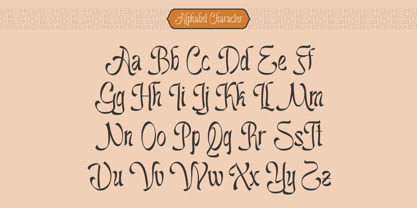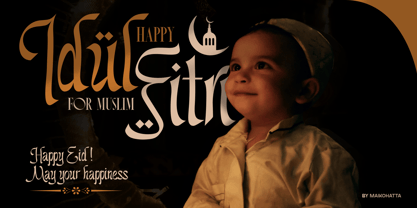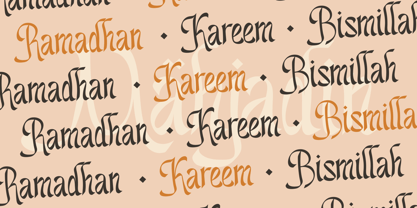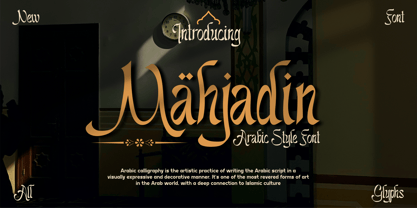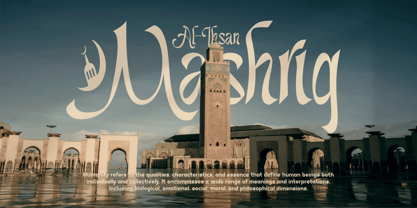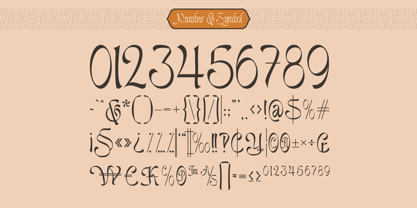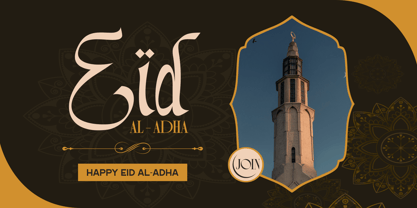
Mahjadin
von Maikohatta
Die Schriftfamilie Mahjadin wurde von Gilang Ternadho entworfen und von Maikohatta veröffentlicht. Mahjadin enthält 1 Stile.
Introducing our new product Mahjadin - Arabic Style Font
Mahjadin - Arabic Style Font is a bold and authentic display font. The font is suitable for any branding project like logo, Template Design, esport, and many more. outstanding in a wide range of contexts.